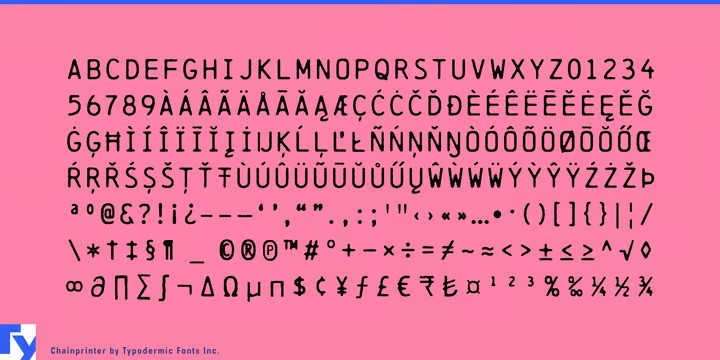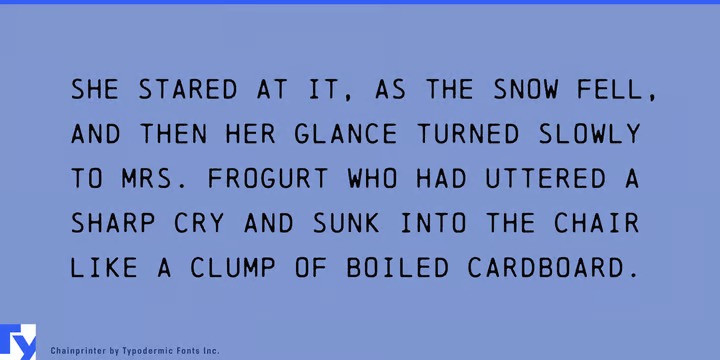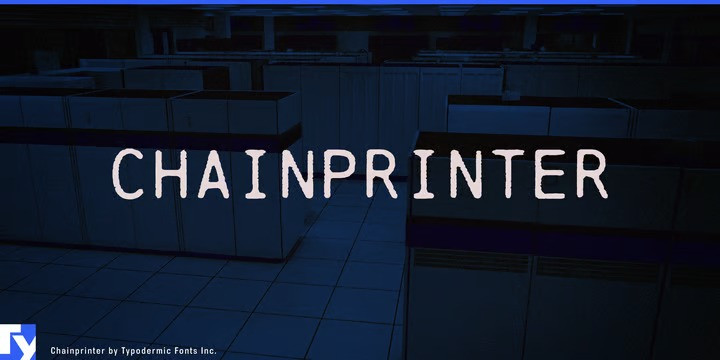
Chainprinter Font
What happens when a printer meets a chainsaw and a player piano? A chain printer was a piece of 1960s computer technology that printed at alarmingly fast speeds, even by today’s standards. Band printers were similar to chain printers, although they resembled bandsaws rather than chainsaws. The majority of print chains and bands used limited punctuation, no accents, and no lowercase characters. Chainprinter mimics the impact of this mechanical marvel from the past with the modern convenience of a complete character set. Do you prefer a clean version with lowercase? Consider Typodermic’s Linefeed. Most Latin-based European writing systems are supported, including the following languages. Afaan Oromo, Afar, Afrikaans, Albanian, Alsatian, Aromanian, Aymara, Bashkir (Latin), Basque, Belarusian (Latin), Bemba, Bikol, Bosnian, Breton, Cape Verdean, Creole, Catalan, Cebuano, Chamorro, Chavacano, Chichewa, Crimean Tatar (Latin), Croatian, Czech, Danish, Dawan, Dholuo, Dutch, English, Estonian, Faroese, Fijian, Filipino, Finnish, French, Frisian, Friulian, Gagauz (Latin), Galician, Ganda, Genoese, German, Greenlandic, Guadeloupean Creole, Haitian Creole, Hawaiian, Hiligaynon, Hungarian, Icelandic, Ilocano, Indonesian, Irish, Italian, Jamaican, Kaqchikel, Karakalpak (Latin), Kashubian, Kikongo, Kinyarwanda, Kirundi, Kurdish (Latin), Latvian, Lithuanian, Lombard, Low Saxon, Luxembourgish, Maasai, Makhuwa, Malay, Maltese, Māori, Moldovan, Montenegrin, Ndebele, Neapolitan, Norwegian, Novial, Occitan, Ossetian (Latin), Papiamento, Piedmontese, Polish, Portuguese, Quechua, Rarotongan, Romanian, Romansh, Sami, Sango, Saramaccan, Sardinian, Scottish Gaelic, Serbian (Latin), Shona, Sicilian, Silesian, Slovak, Slovenian, Somali, Sorbian, Sotho, Spanish, Swahili, Swazi, Swedish, Tagalog, Tahitian, Tetum, Tongan, Tshiluba, Tsonga, Tswana, Tumbuka, Turkish, Turkmen (Latin), Tuvaluan, Uzbek (Latin), Venetian, Vepsian, Võro, Walloon, Waray-Waray, Wayuu, Welsh, Wolof, Xhosa, Yapese, Zapotec Zulu and Zuni.